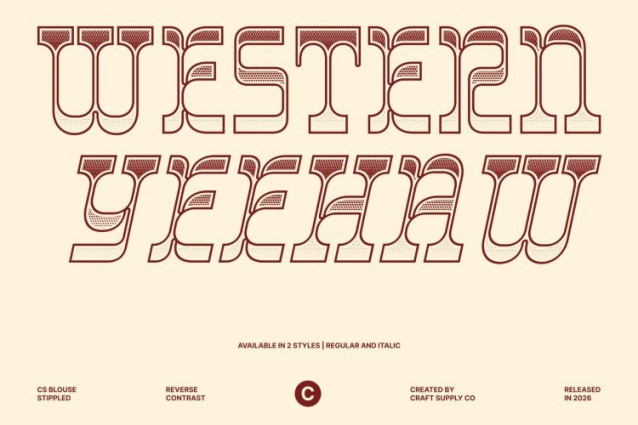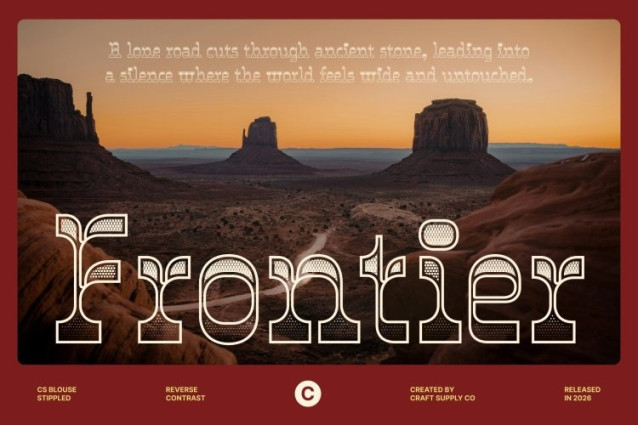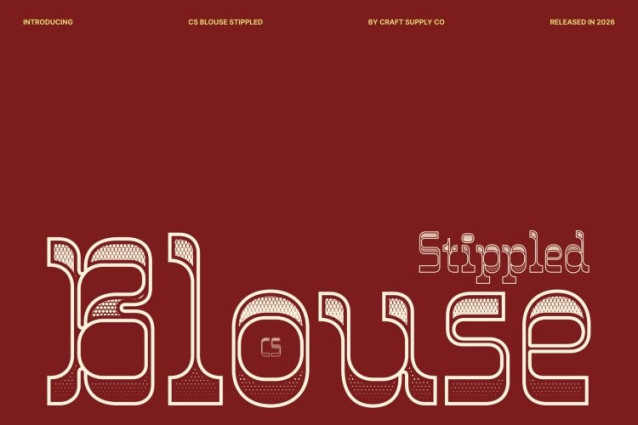
CS Blouse Stippled Font
CS Blouse Stippled Font – This is a display serif font that embraces the distinctive reverse contrast style, where horizontal strokes appear thicker than vertical ones. This unconventional structure creates a expressive rhythm within each letterform, giving the typeface a striking visual personality. The reversed contrast adds a dynamic flow that feels artistic and confident, making the font instantly eye-catching.
Retro Inspiration with a Contemporary Twist
Inspired by vintage Western typography and mid-century signage, carries a nostalgic spirit while maintaining a modern sense of refinement. Its thick strokes, playful curves, and exaggerated proportions give the font a lively and charismatic appearance. This balance between retro and contemporary clarity allows the font to feel familiar yet refreshingly unique.
Distinctive Stippled Texture for Artistic Depth
The stippled effect enhances the font with a dense dotted texture inspired by traditional stippling and ink-dot illustration techniques. This textured detail adds visual depth and character to the bold letterforms, creating an engraved, handcrafted impression. The dotwork texture strengthens the vintage atmosphere while adding a layer of artistic sophistication.
Perfect for Statement-Driven Design
This is designed for projects that demand attention and personality. It works exceptionally well for branding, posters, magazine headlines, album covers, and high-impact advertising. Whether used in fashion branding, lifestyle campaigns, or creative editorial layouts, the font delivers a stylish, and memorable typographic presence that makes every design stand out.